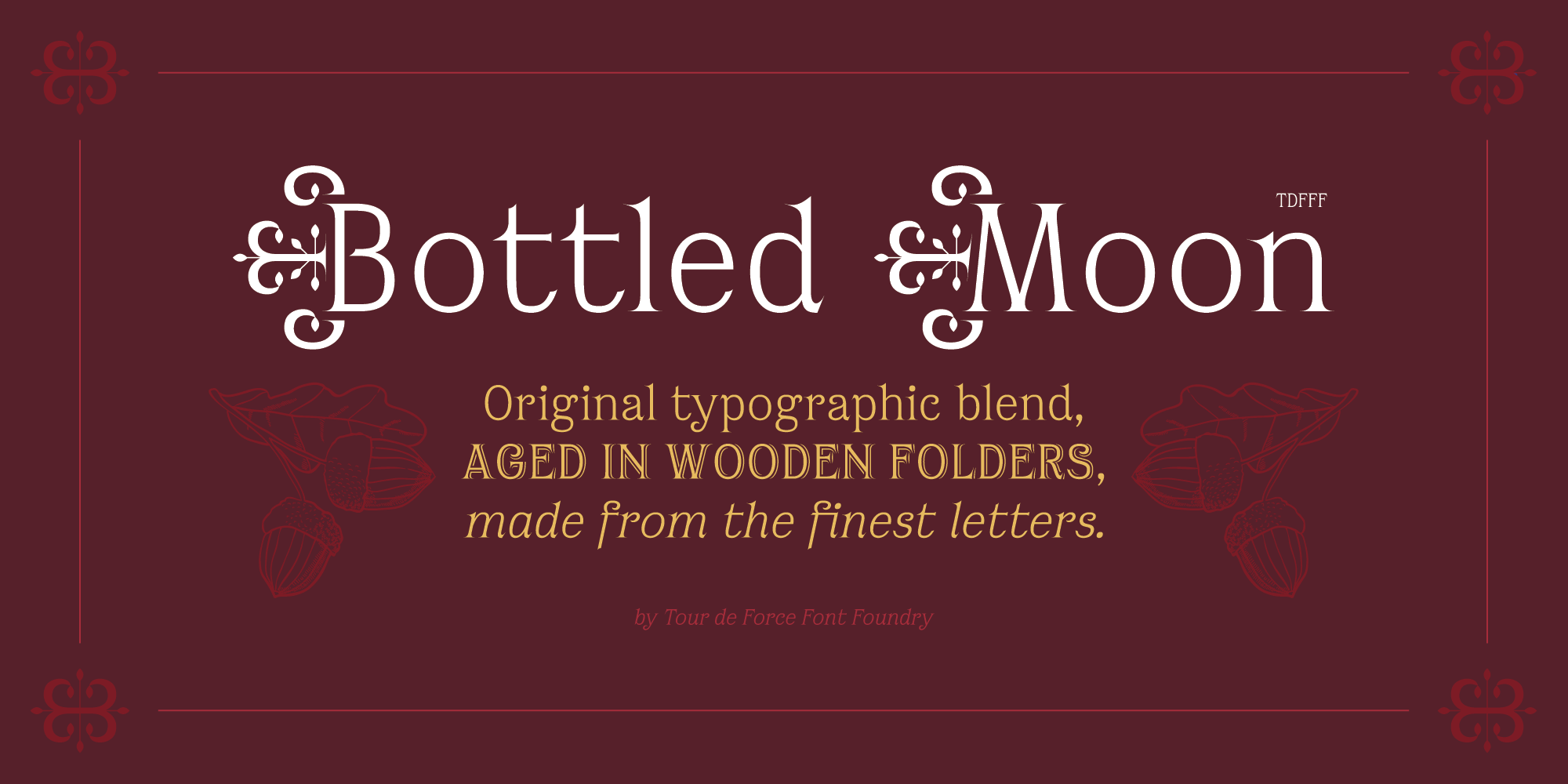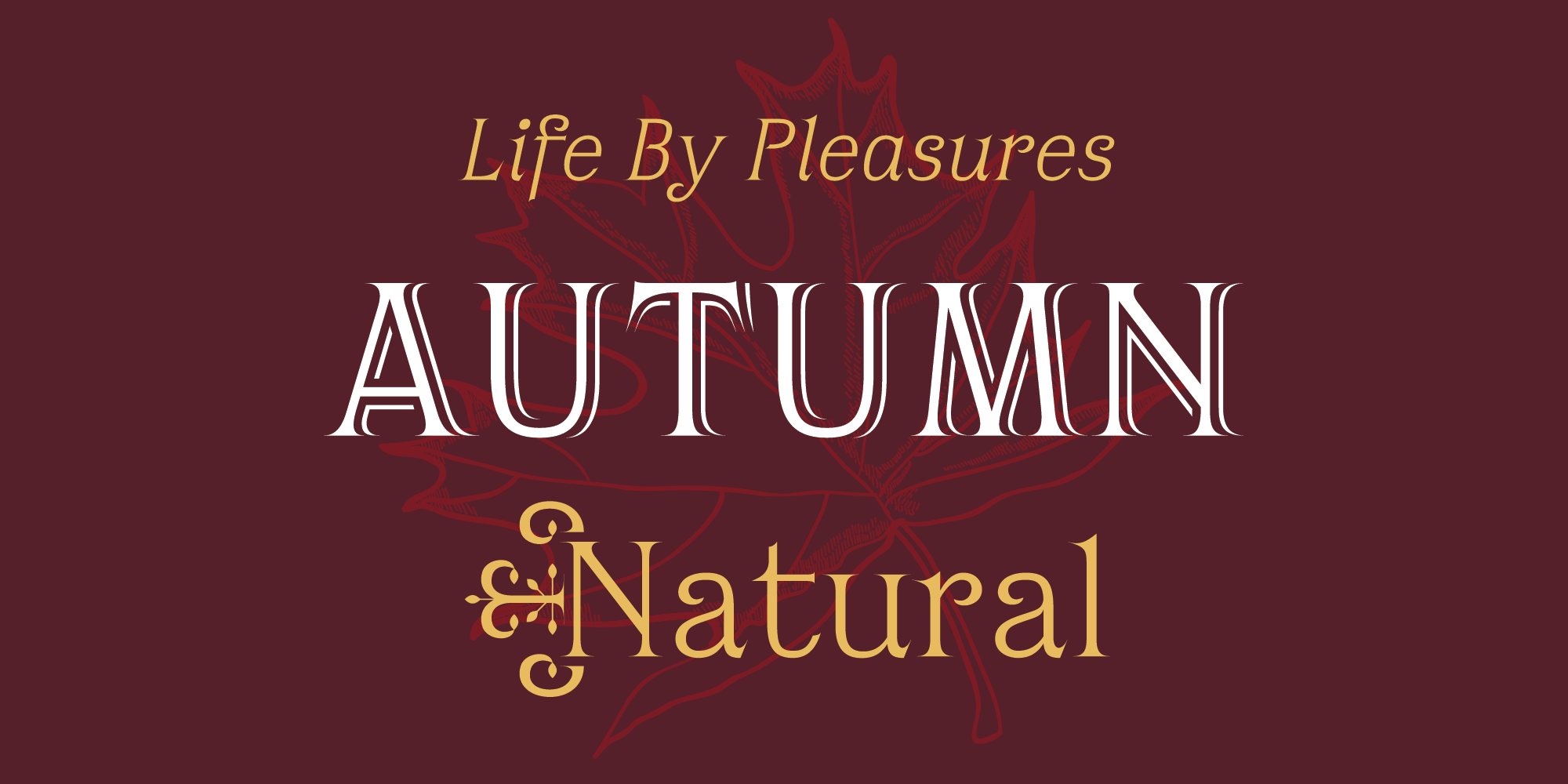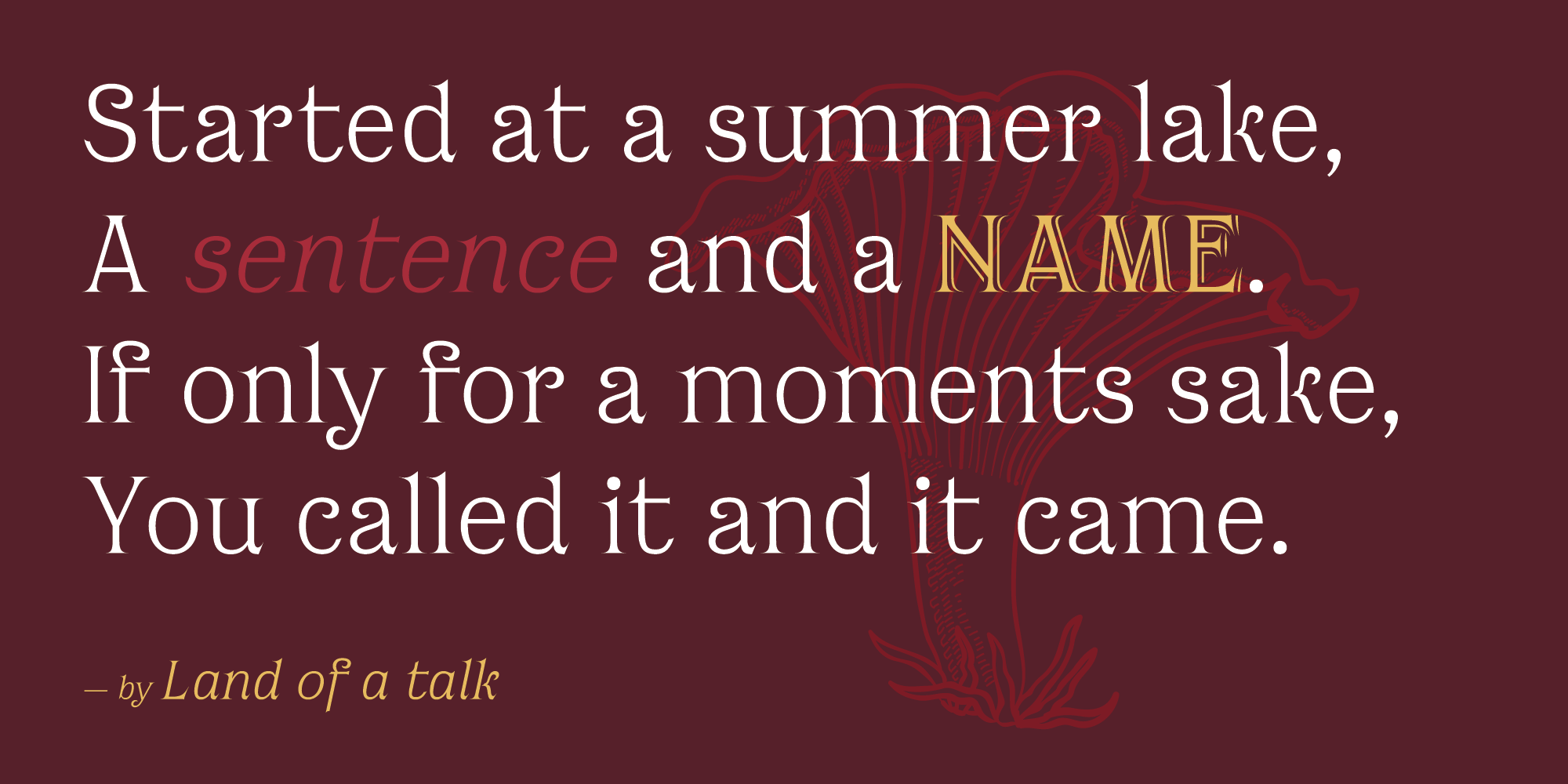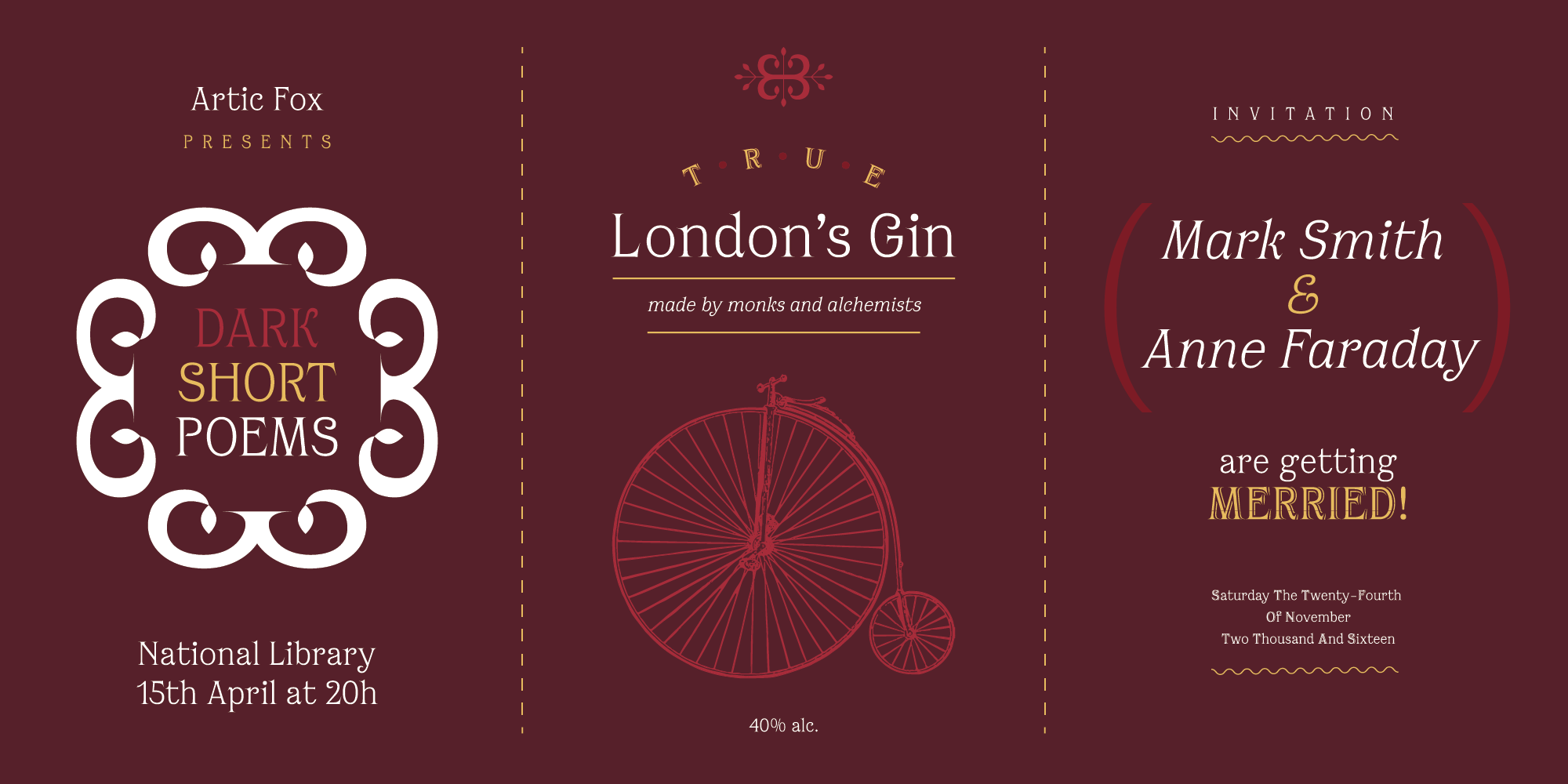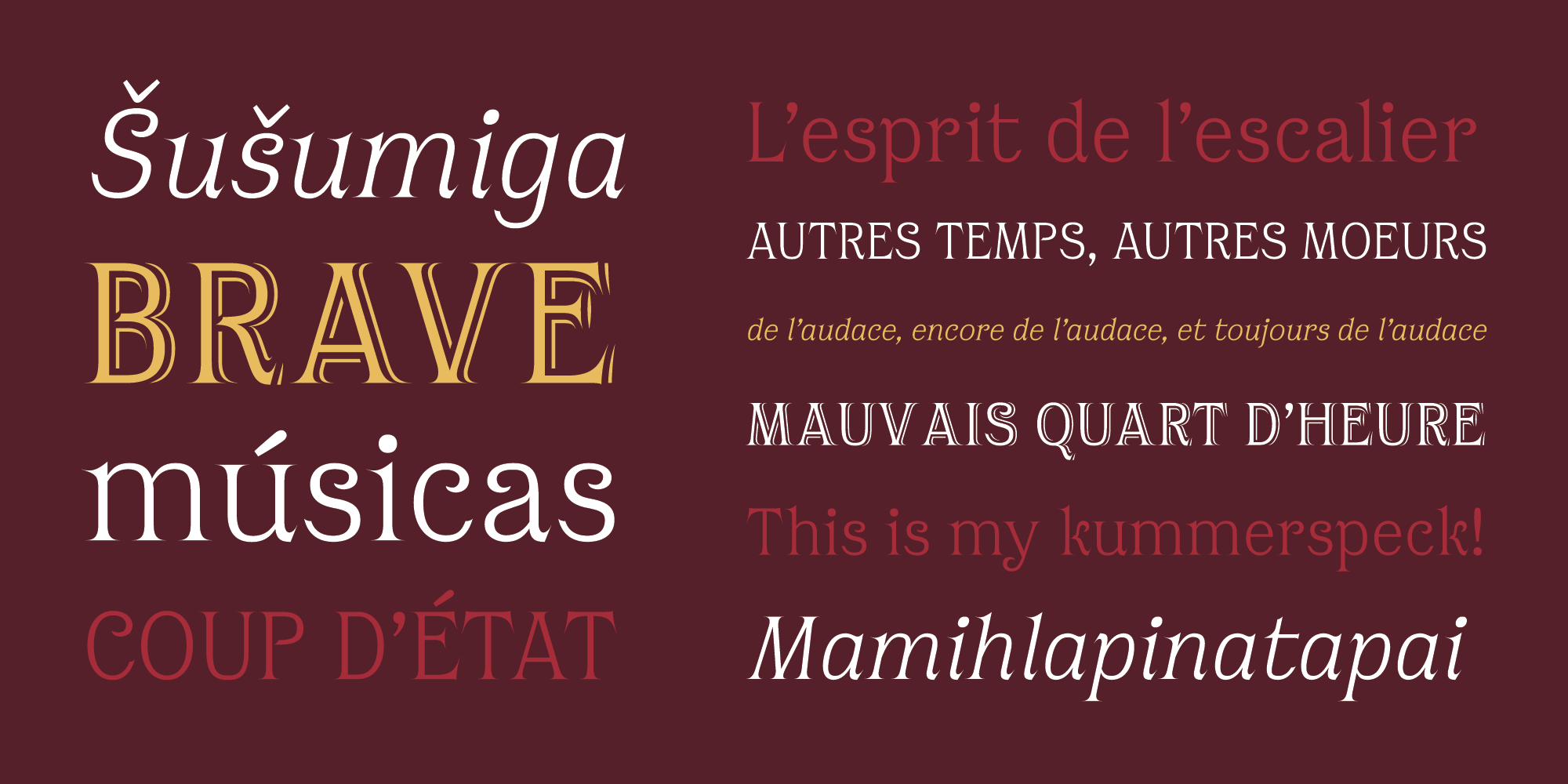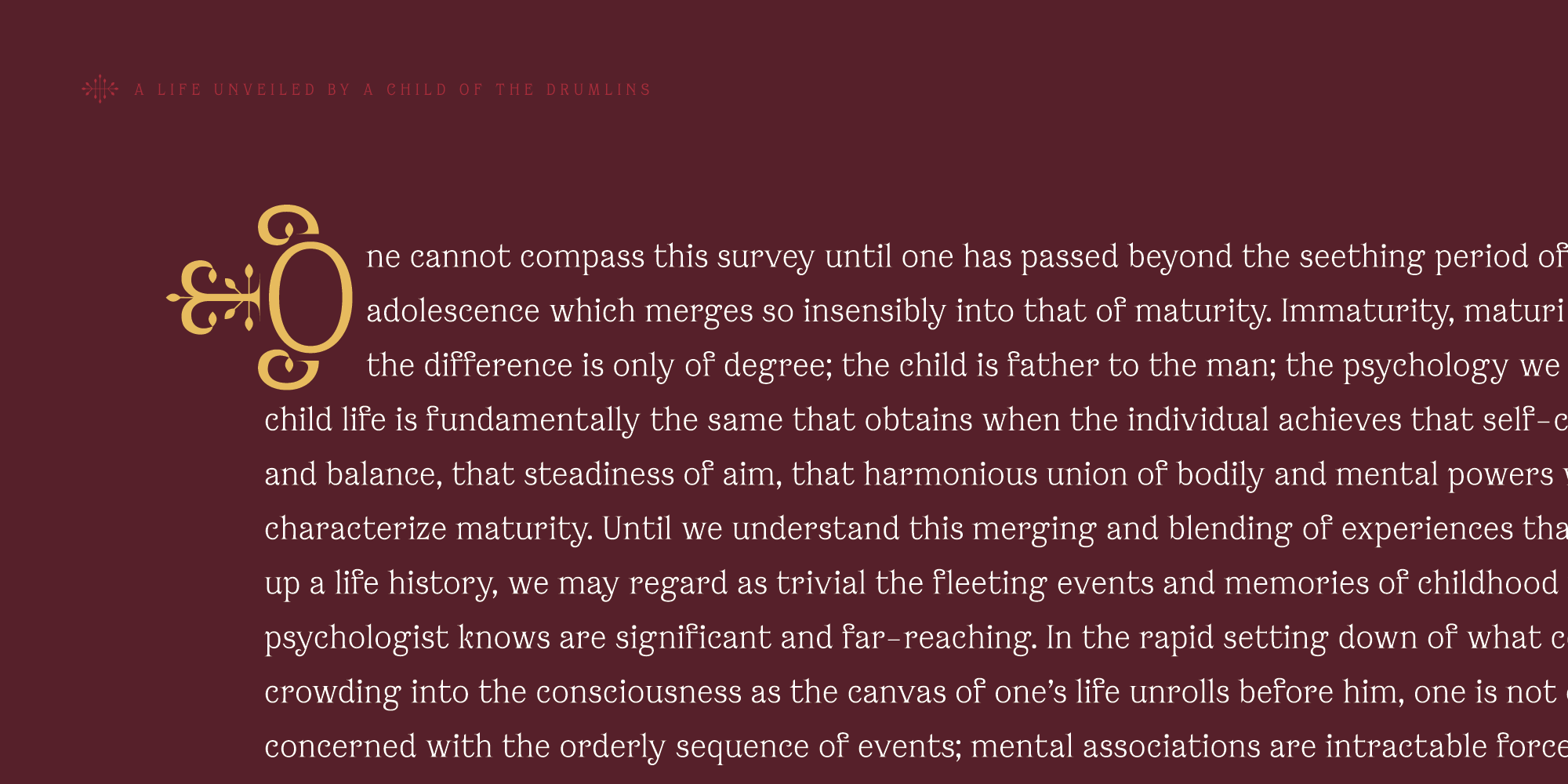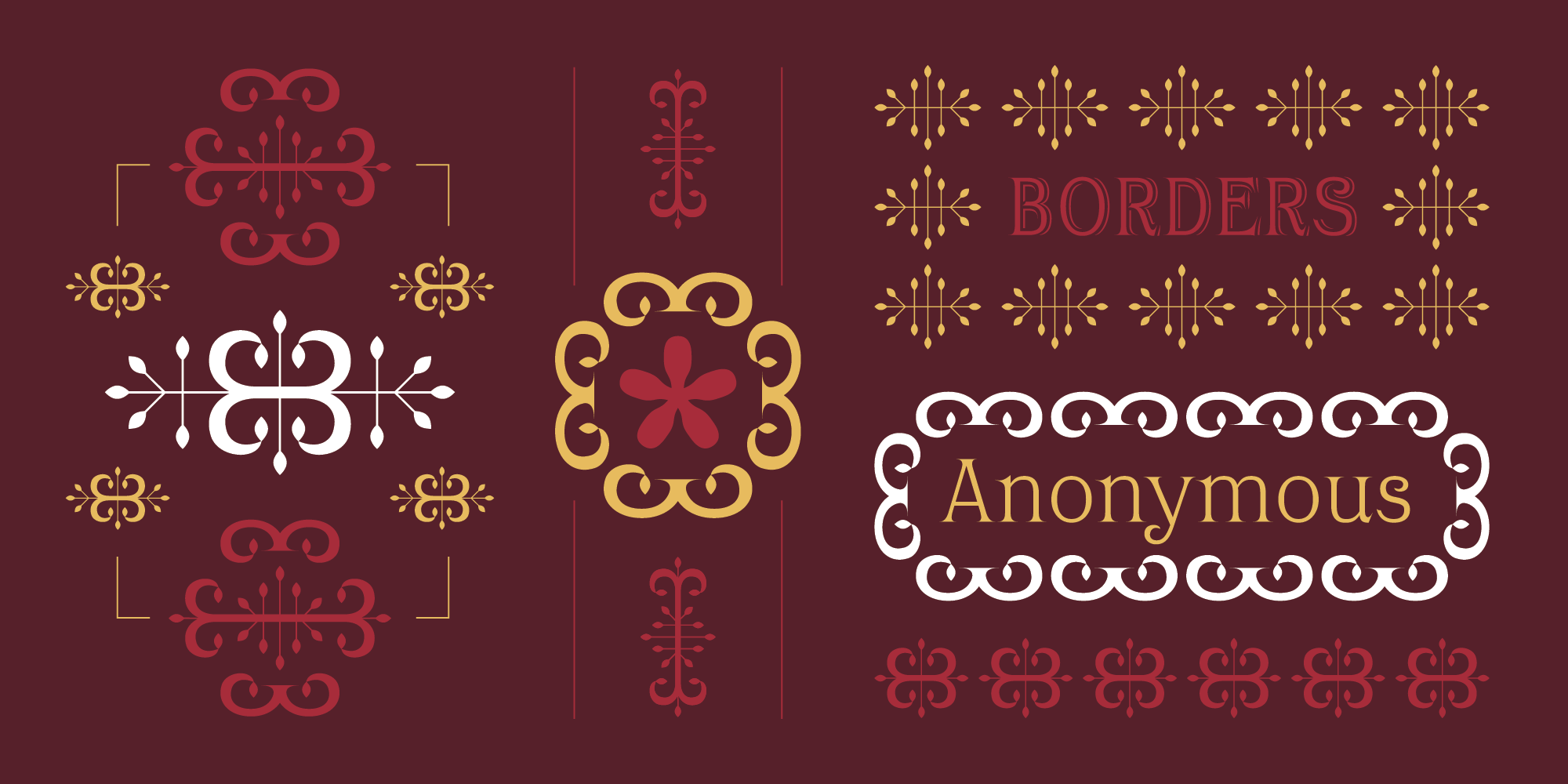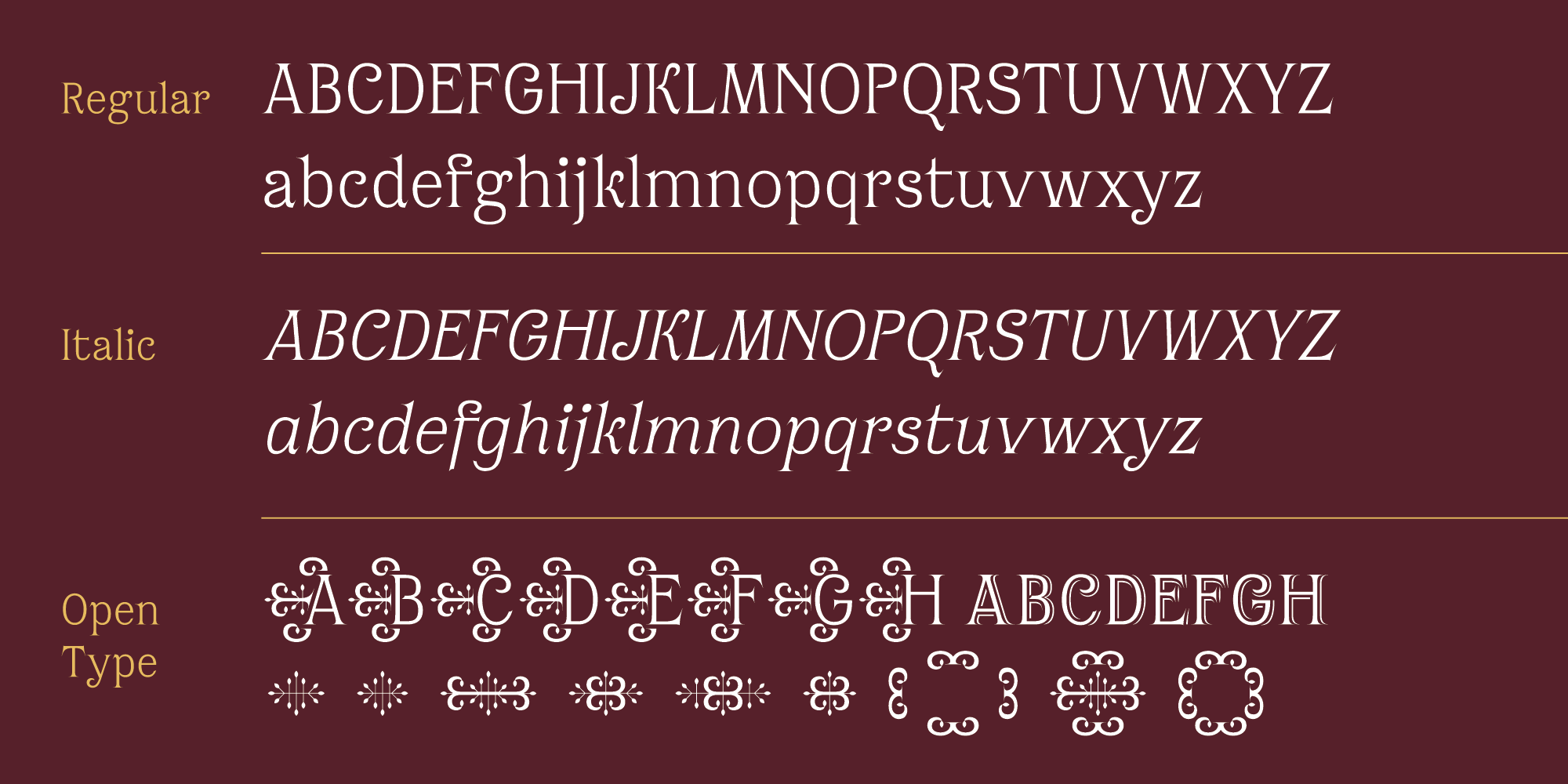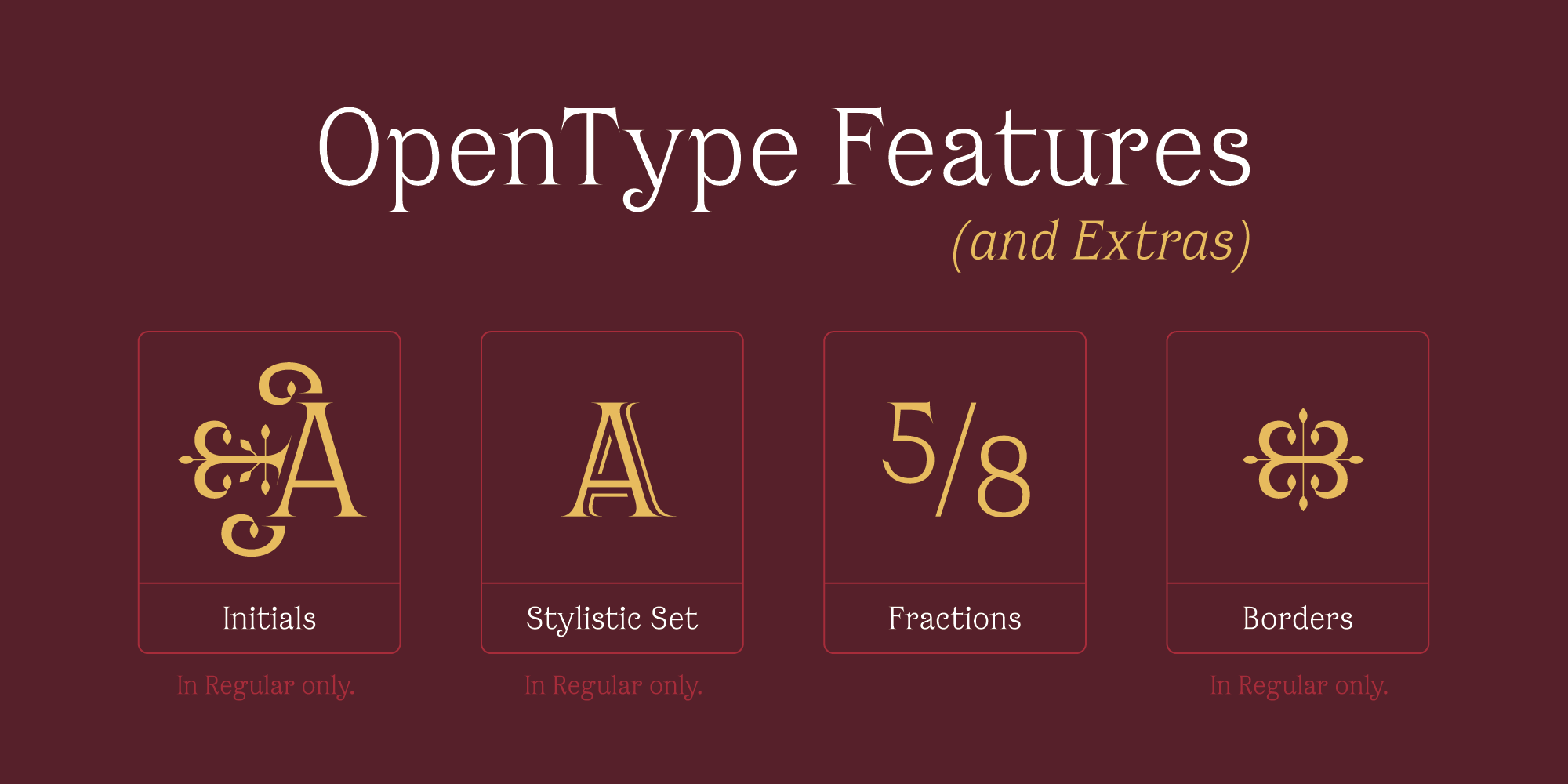
Bottled Moon is display serif typeface full of possibility. It is lively family containing Regular and Italic styles.
By it's design, Bottled Moon took inspiration from vintage typefaces and their specific charm, with catchy details like curly terminals and gently curved sharp serifs. All characteristics of Bottled Moon together give combination with dose of calligraphy, working horse serif typeface and display OpenType features. Works pretty well in small sizes, keeping it's uniqueness and legibility.
Whether you're looking for typeface for whiskey label, wedding invitation, restaurant branding or perfume package, Bottled Moon recommends itself with original Initials, shadowed Stylistic Set and pack of adjustable Borders together with classical Fractions.